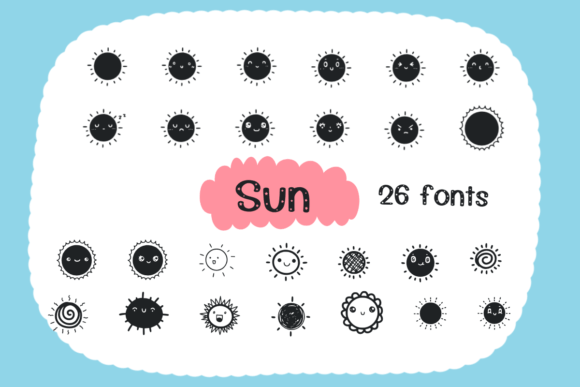
Introducing Sun Font, the adorable hand-drawn dingbat font that will add a touch of whimsy and charm to your designs. With its playful glyphs and versatile style, Sun Font is the perfect choice for a wide range of projects, from personal stationery to children's books.
Sun Font is carefully crafted to capture the innocence and joy of childhood. Each glyph is hand-drawn with a playful and whimsical touch, adding a unique personality to your designs. Whether you're creating invitations, greeting cards, or social media graphics, Sun Font will bring a smile to the faces of your audience.
But don't let its cute appearance fool you, Sun Font is also a versatile and powerful tool for designers. With its wide range of glyphs, you can create an endless variety of designs, from whimsical illustrations to elegant logos. Sun Font is the perfect choice for adding a touch of magic to any project.
If you're looking for a font that will add a touch of whimsy and charm to your designs, look no further than Sun Font. Its adorable glyphs and versatile style will make it a favorite in your font collection.
Here are just a few reasons why you'll love Sun Font:
- Its cute and adorable hand-drawn style will add a touch of whimsy and charm to your designs.
- Its versatile style can be used for a wide range of projects, from personal stationery to children's books.
- Its wide range of glyphs gives you endless possibilities for creating unique and eye-catching designs.
- Its easy-to-use format makes it perfect for both beginners and experienced designers.